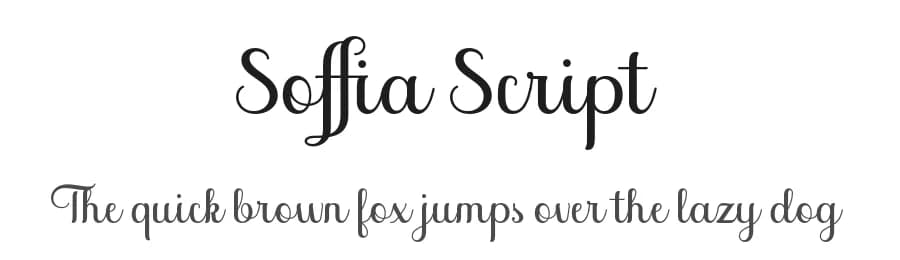
About Soffia Script Font
Soffia Script is a script & handwritten font designed by Zane Studio. It includes 214 glyphs, a regular weight, OTF (CFF) format, and 217 languages. Soffia Script is free to download; check the license details on this page before commercial use. Script & handwritten fonts like Soffia Script work best for wedding invitations, greeting cards, signatures, and elegant branding.
Soffia Script Font is a script font that shines as a display or heading face. Pair it with a clean sans-serif or serif font for body text β the contrast creates a clear hierarchy while the two styles stay balanced and easy to read.
Soffia Script Font
by Zane Studio